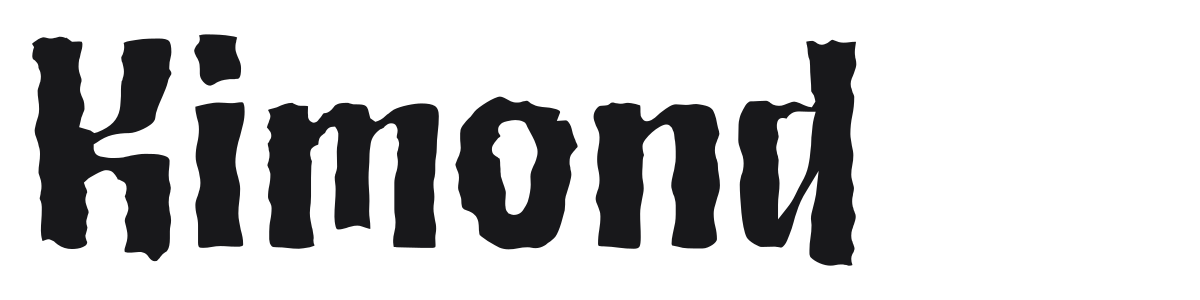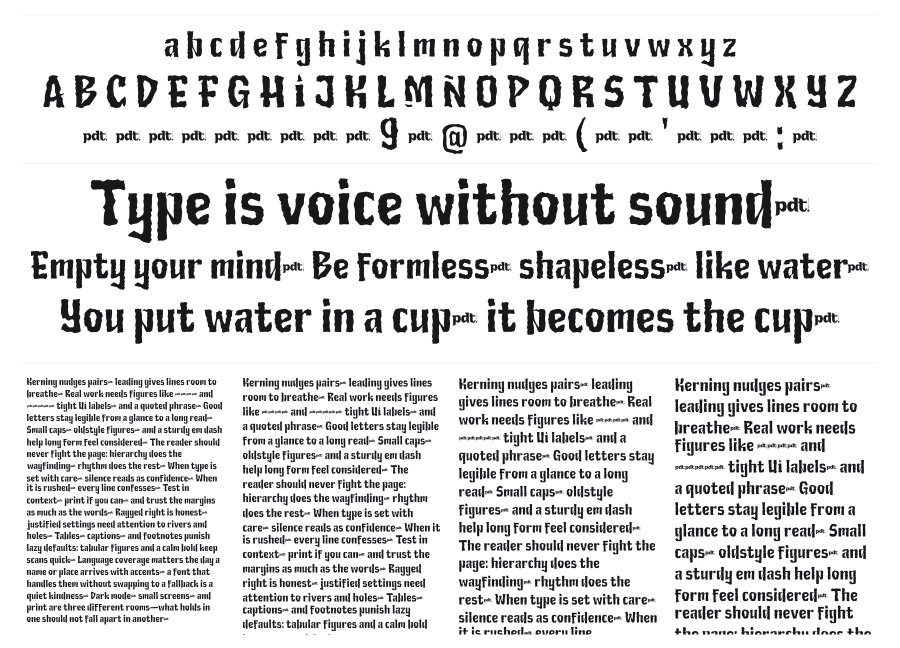
Kimond
Kimond is a heavy gothic display font built on blackletter bones and covered in deliberate distress. Every stroke carries rough, eroded edges that make it feel like lettering chiseled into decaying stone. It lands squarely in horror and Halloween territory, and works best at large sizes where the texture reads clearly.